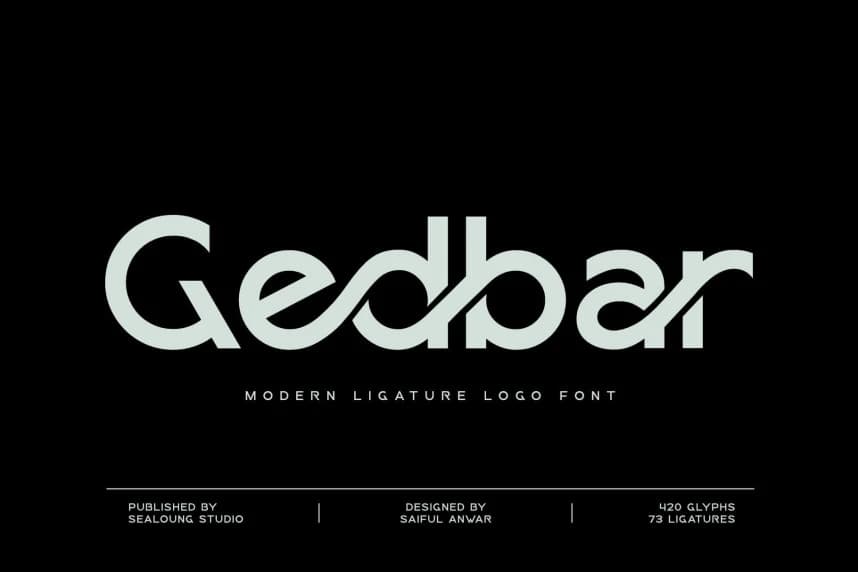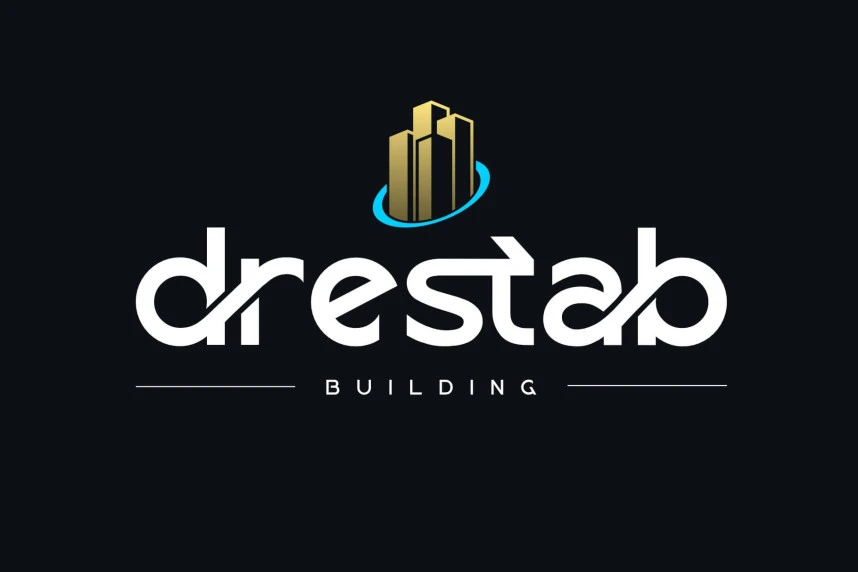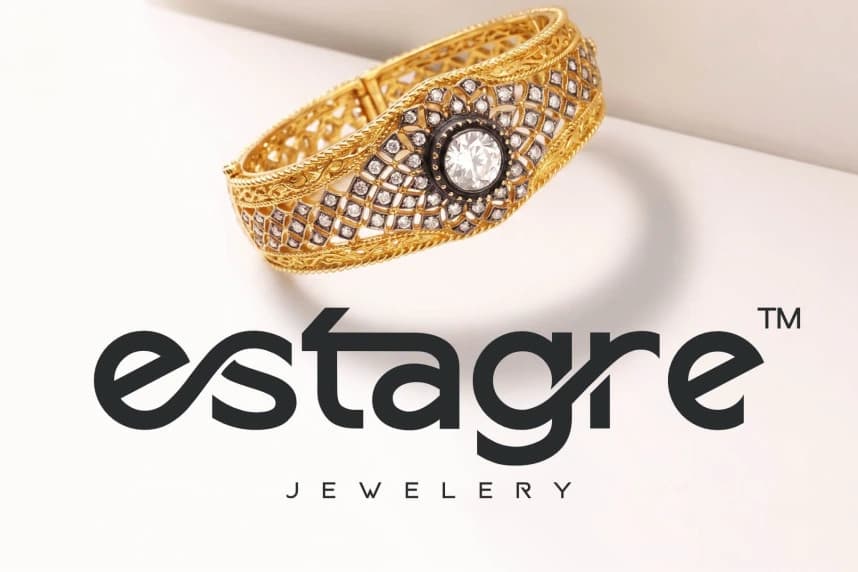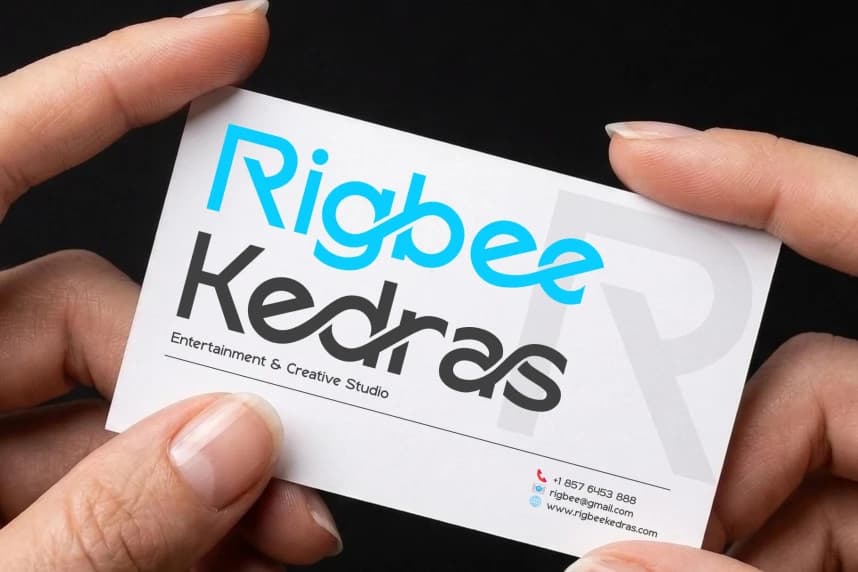
Gedbar Font
Gedbar Font, a striking and modern typeface crafted to strengthen your brand identity. With its clean structure and bold personality, Gedbar is built to create visuals that instantly capture attention.